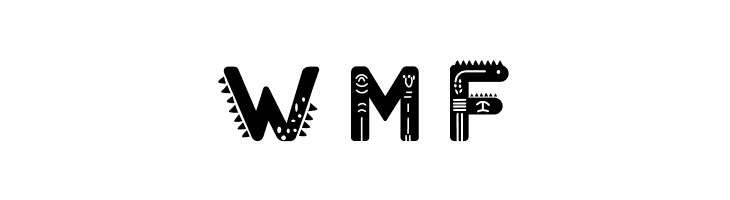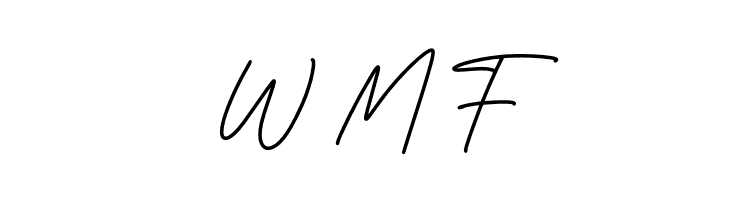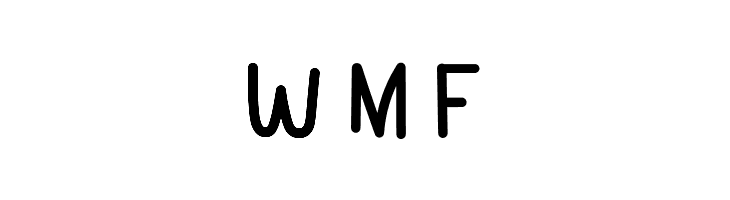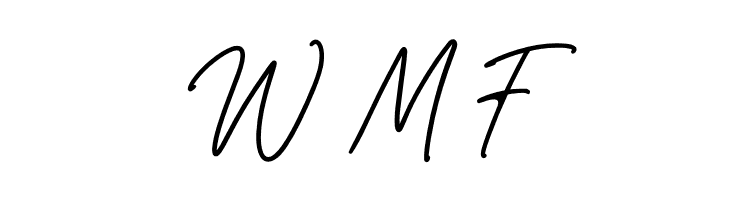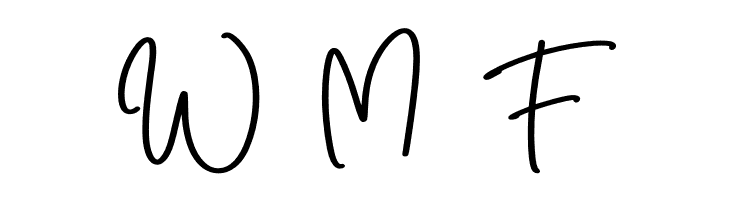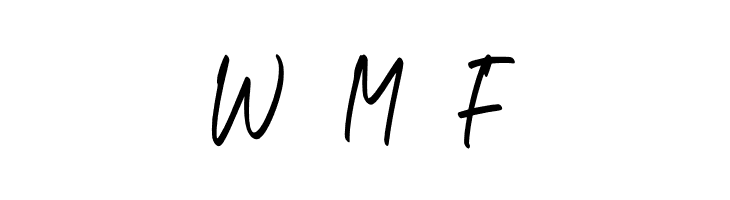
A playful, dinosaur-themed font with creative and whimsical letterforms.
A fluid and elegant handwritten script font with a modern touch.
A playful, rounded font with a hand-drawn feel and bold strokes.
A bold, playful handwritten font with thick strokes and a casual style.
Handwritten cursive script font.
Casual handwritten script font.
A relaxed, handwritten script with a natural flow.